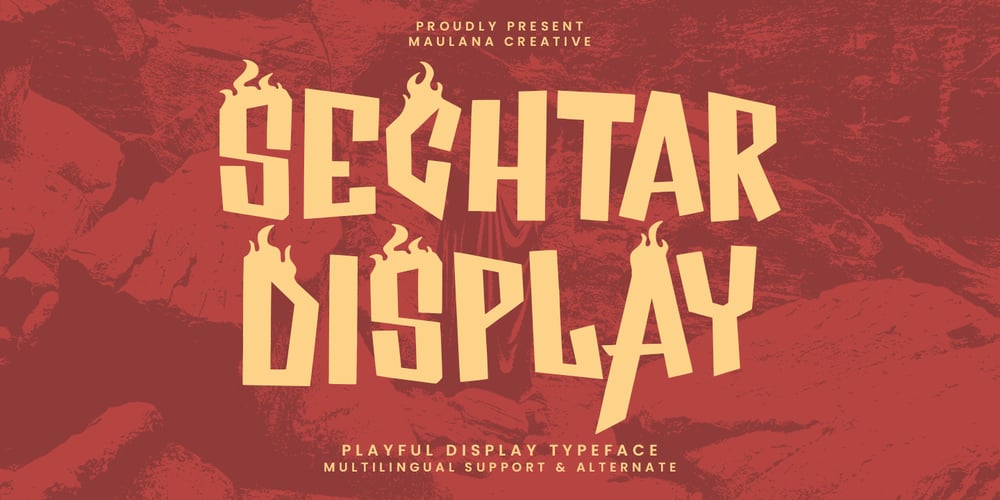
Sechtar Font Family was designed by Gilang Maulana and published by Maulana Creative. Sechtar contains 1 styles and family package options. Sechtar display playful display typeface. Heavy stroke, fun character with a bit of ligatures. To give you an extra creative work. Sechtar display playful display typeface support multilingual more than 100+ language. This font is good for logo design, Social media, Movie Titles, Books Titles, a short text even a long text letter and good for your secondary text font with script or serif. Make a stunning work with Sechtar display playful display typeface. Cheers, Maulana Creative